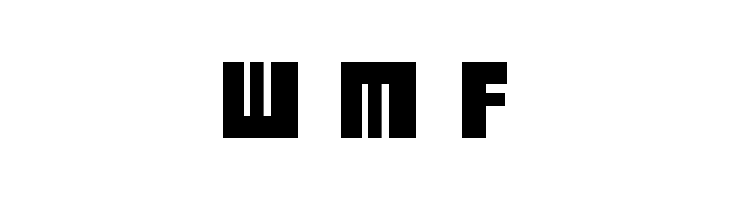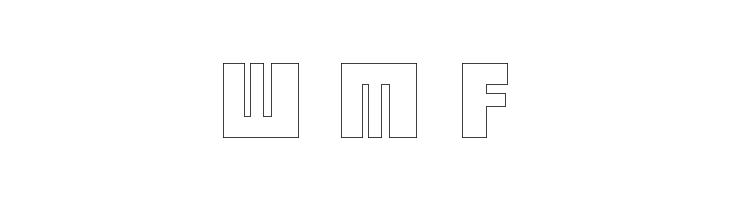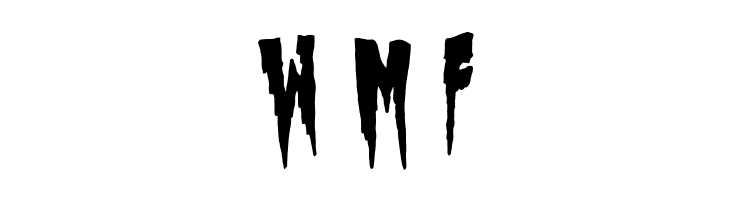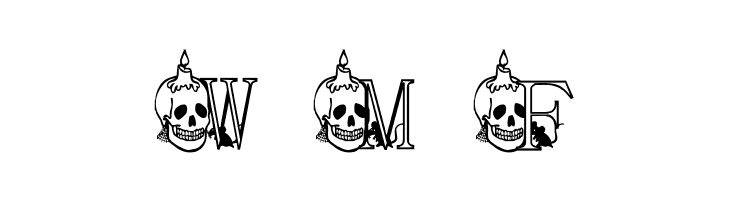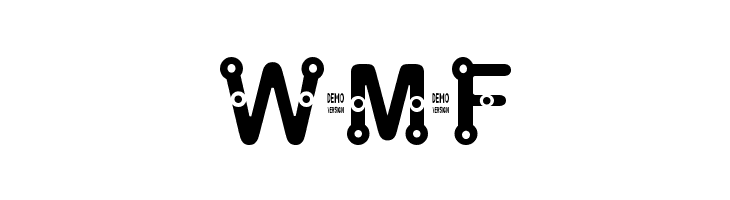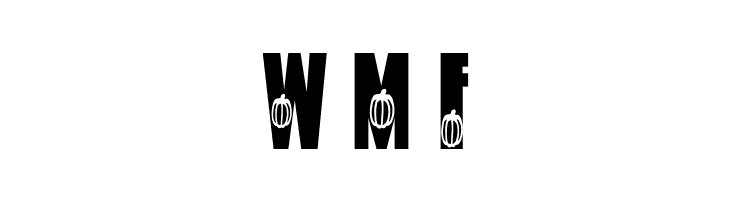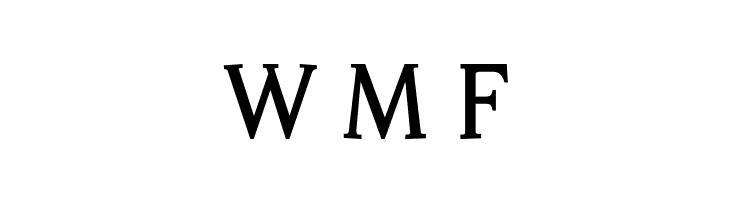
A bold, Western-style font with blocky, angular serifs and a vintage feel.
A bold, geometric font with a modern, angular design.
An outlined, geometric font with a modern and playful style.
A spooky, jagged font perfect for Halloween themes.
A Halloween-themed decorative font with skulls and bats integrated into the characters.
A playful, candy-inspired font with bold, rounded letters connected by circular elements.
A bold, Halloween-themed decorative font featuring jack-o'-lantern and pumpkin motifs.
A Halloween-themed font with jack-o'-lantern faces in each character.
A bold, classic serif font with moderate contrast and excellent legibility.